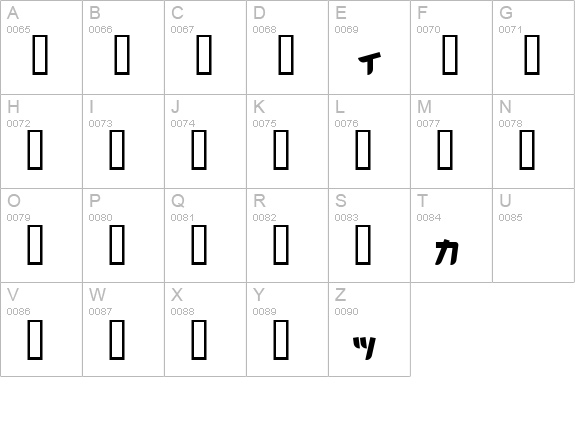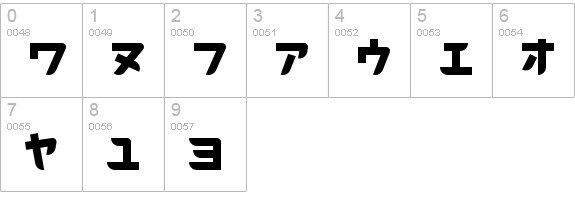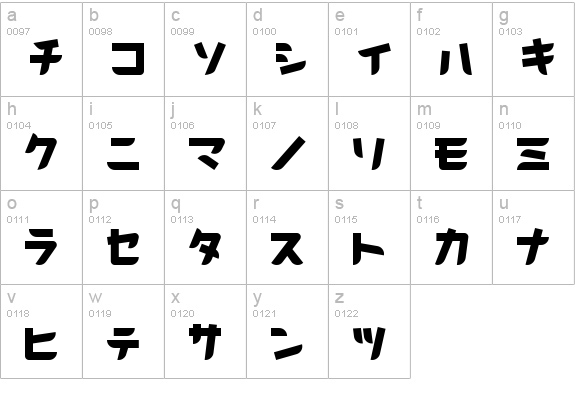
I2thoroughbred Font Details
The I2thoroughbred font is a stunning display of elegance and sophistication. With its sleek lines and refined curves, this font exudes a sense of grace and power. It is the perfect choice for projects that require a touch of sophistication and class. This font is not only visually appealing but also incredibly versatile. Whether you are creating a logo, designing a website, or crafting a beautiful invitation, the I2thoroughbred font will elevate your design to new heights. One of the best things about the I2thoroughbred font is that it is available for free download at FontsMarket.com. This means that you can easily access this incredible font without any cost. FontsMarket.com is a trusted source for high-quality fonts, and they ensure that the fonts they offer are free from any copyright issues. So, why wait? Download the I2thoroughbred font today and unleash your creativity. Whether you are a professional designer or someone who simply appreciates beautiful typography, this font is sure to impress. Don't miss out on the opportunity to add this incredible font to your collection. Get it now, and let your designs shine with the timeless beauty of the I2thoroughbred font.